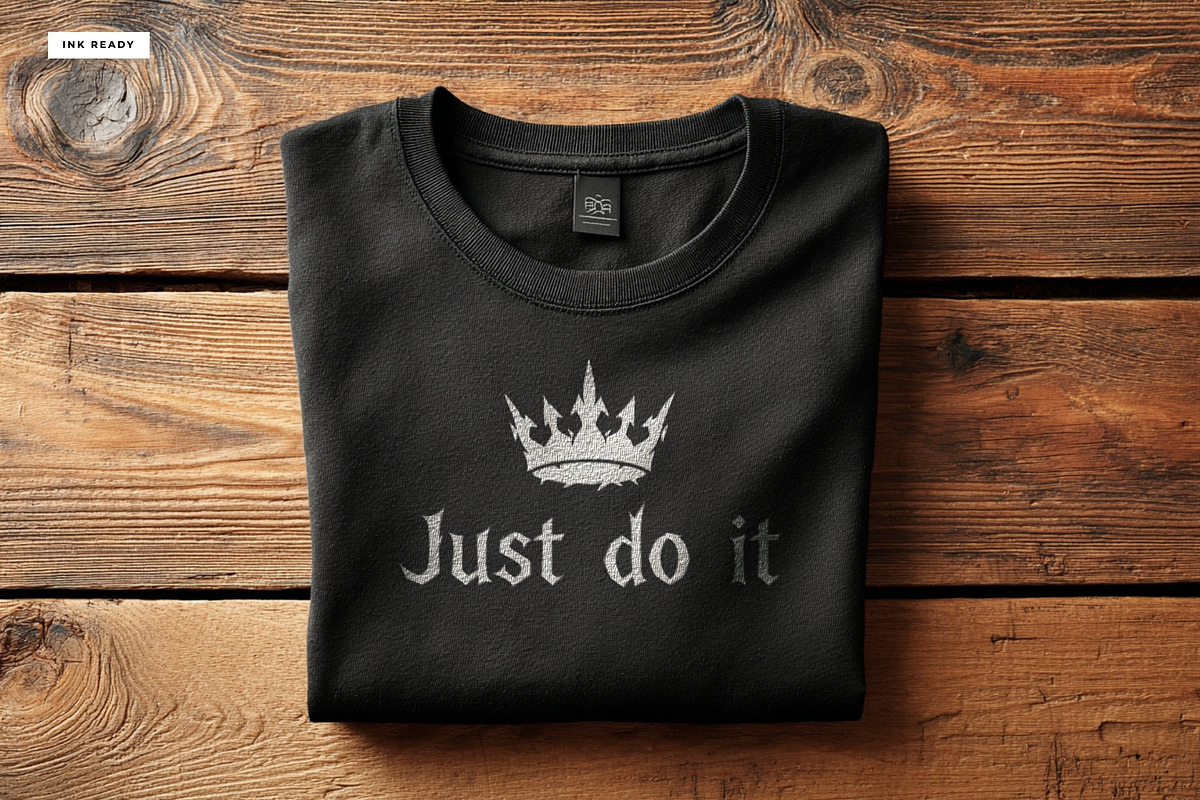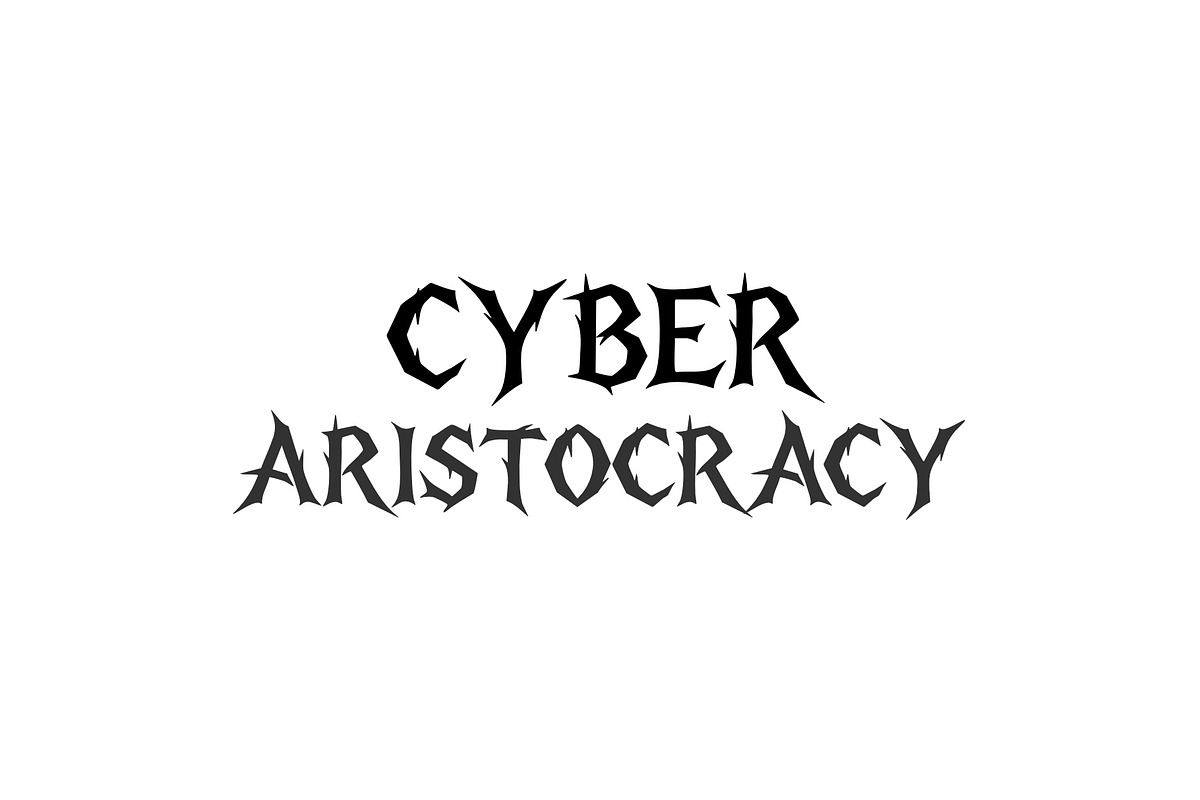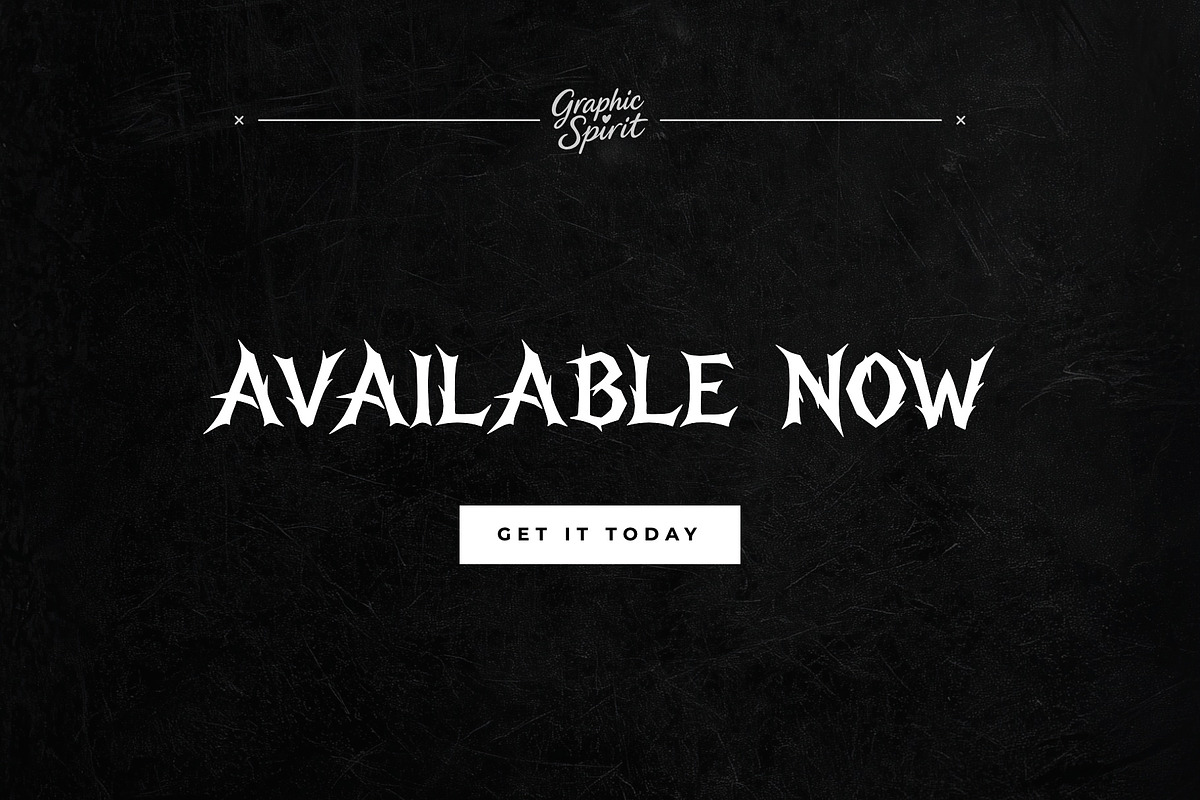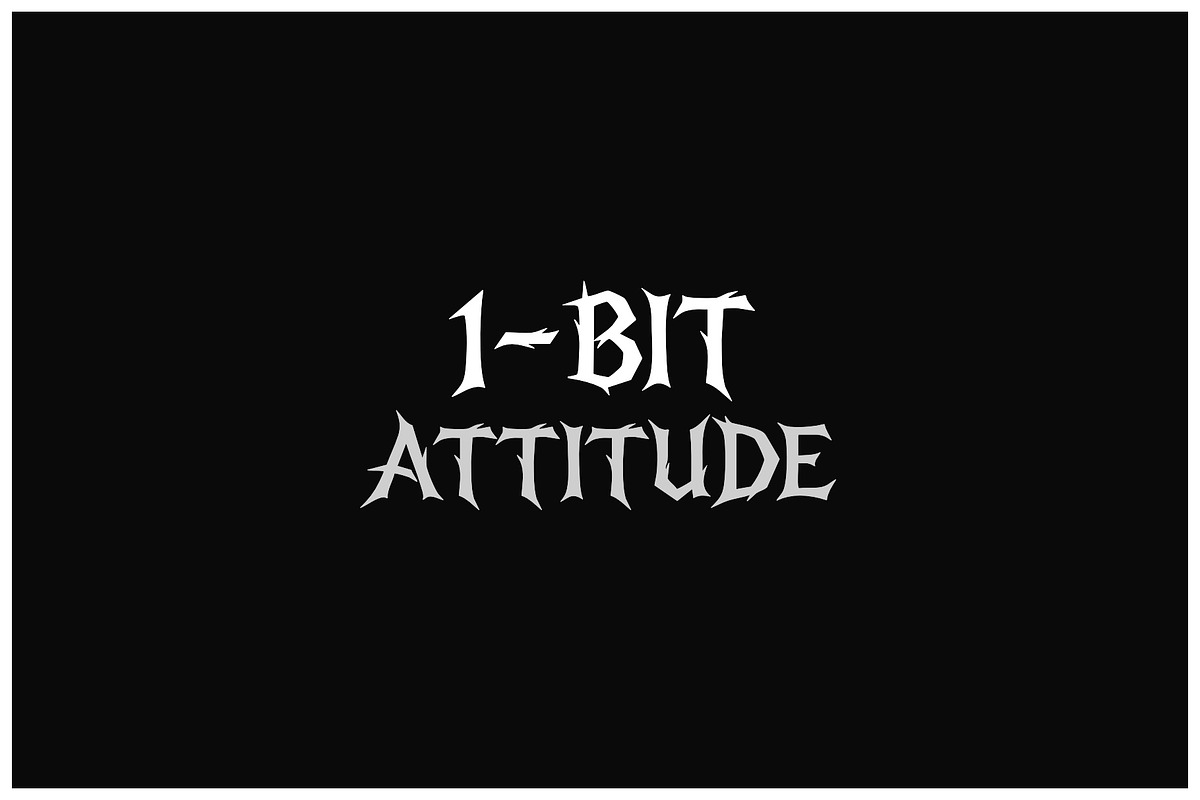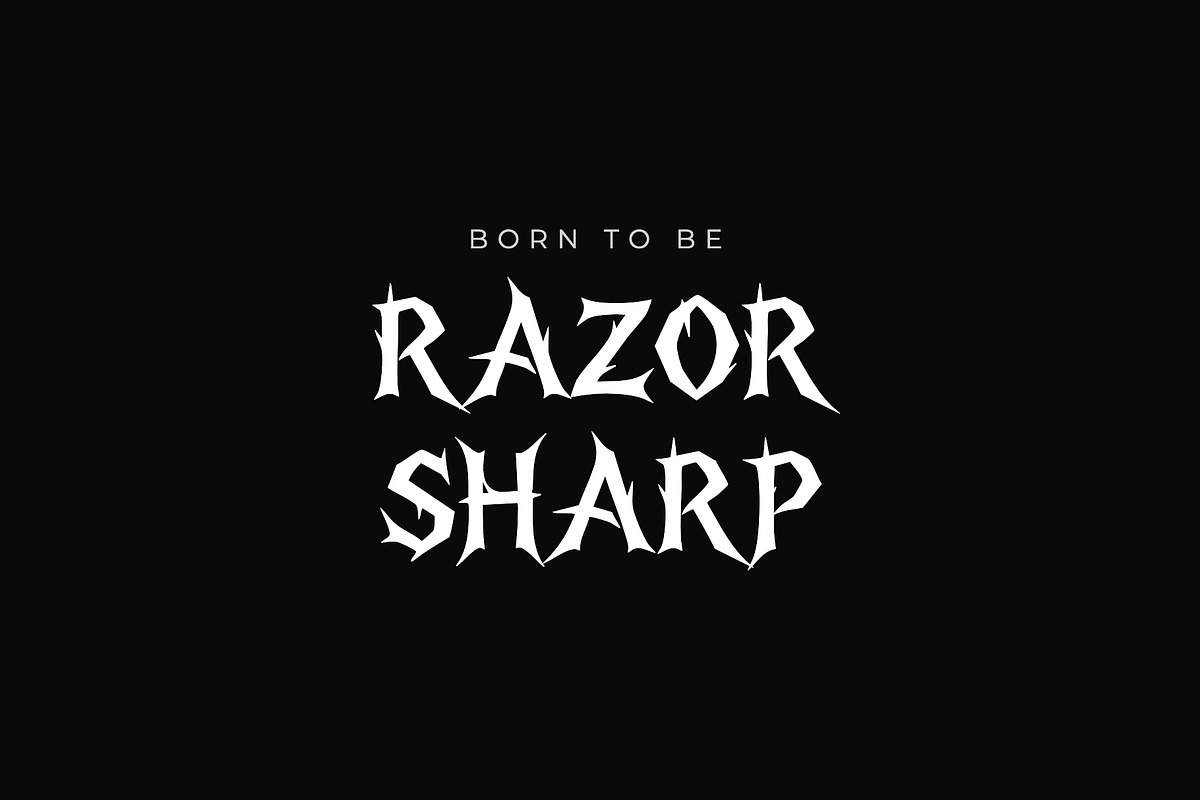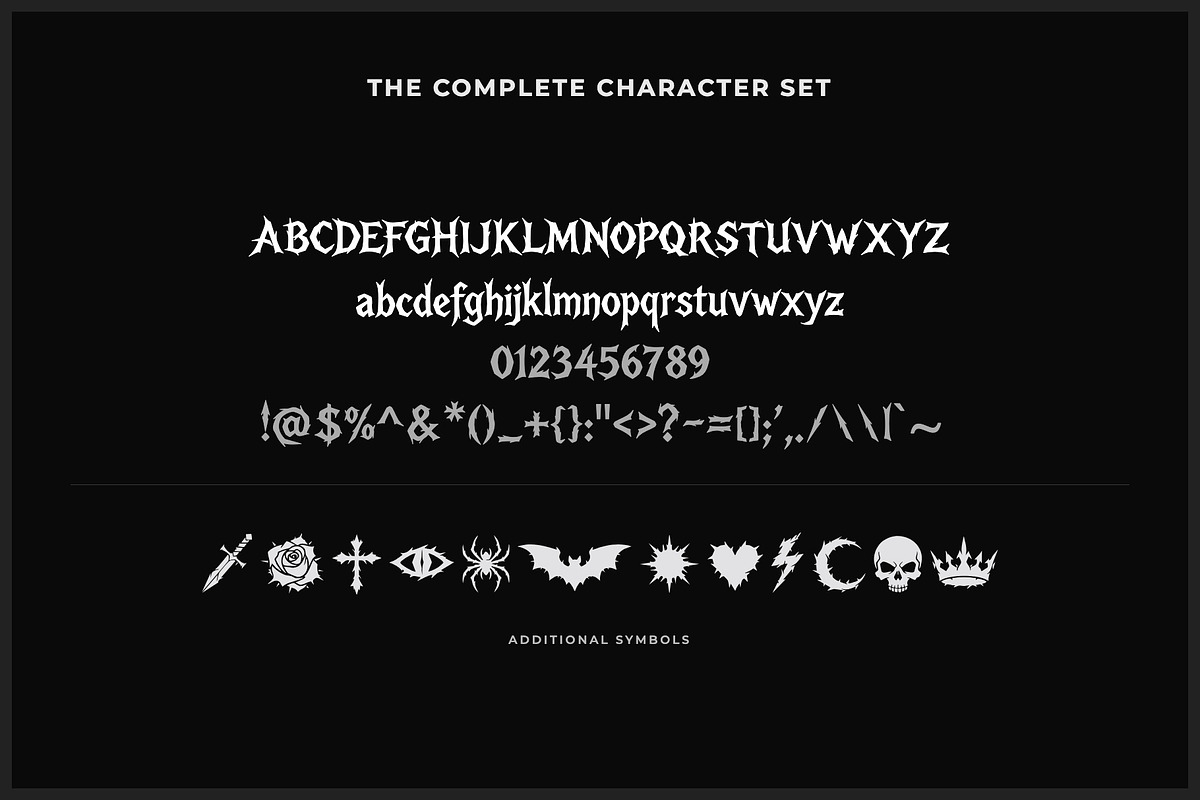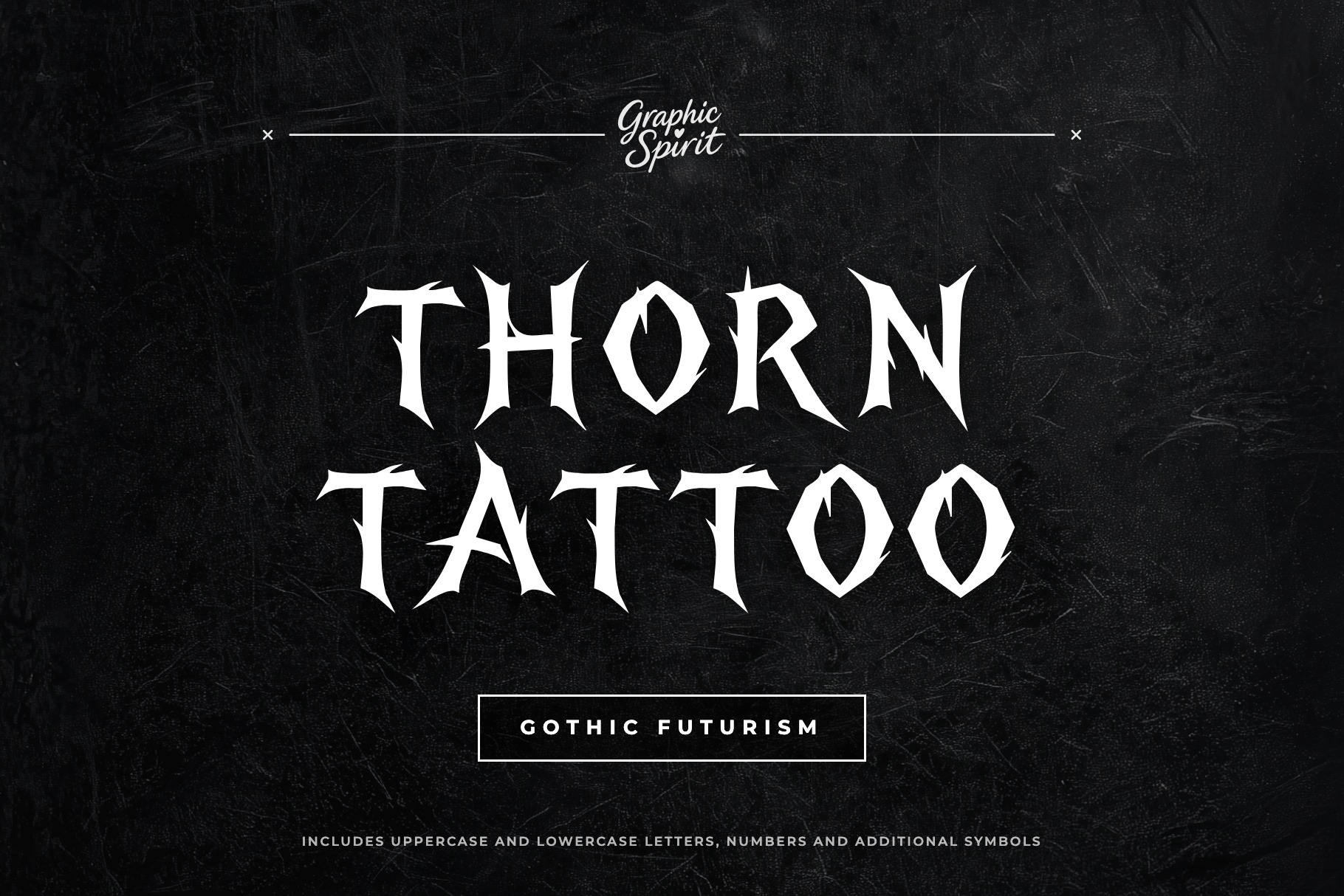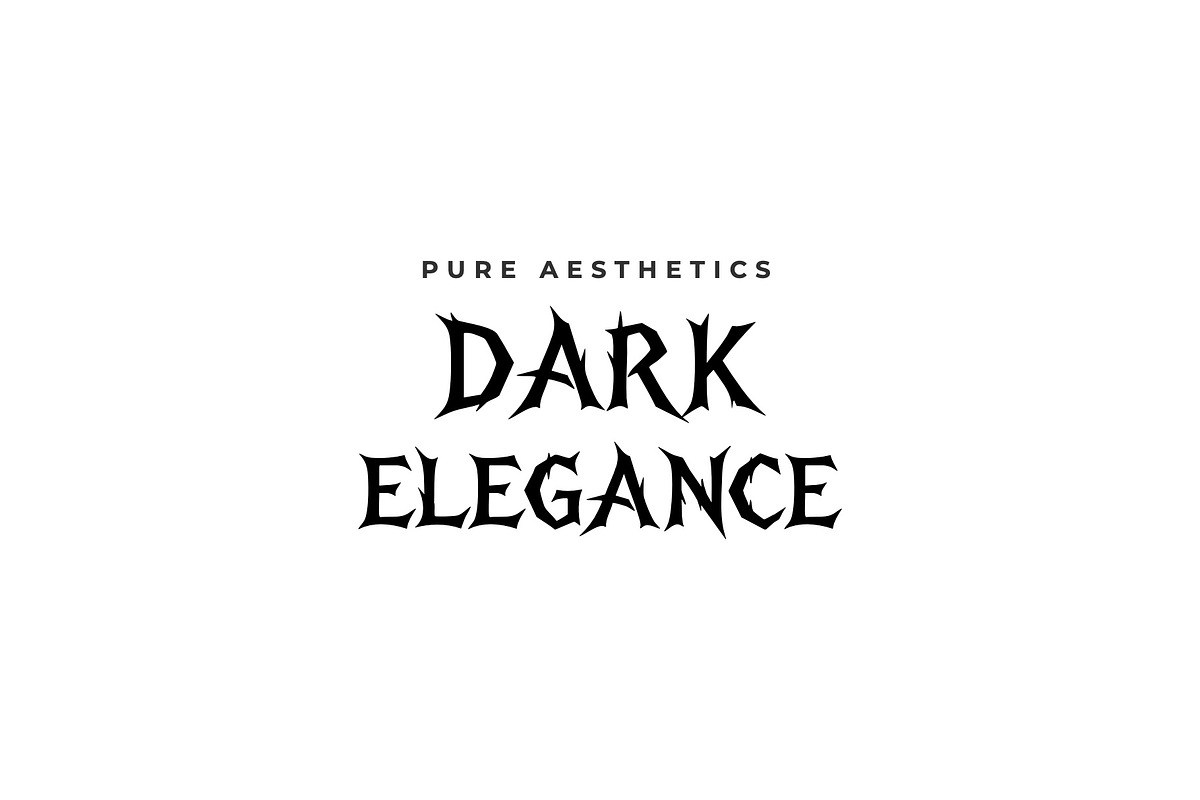
Thorn Tattoo Decorative Font
Thorn Tattoo is a sharp and aggressive Gothic-inspired font that brings a dark storytelling vibe to modern design projects. As a digital download, it offers piercing thorn-like edges and a modern Gothic aesthetic, ideal for designers seeking an edgy and intense look for their branding or apparel work. The typeface's sharp construction and dangerous lines ensure a powerful presence in any creative layout.
Designed for impact and edge, Thorn Tattoo is perfect for everything from dark logos to striking social media graphics. Its state-of-the-art design includes sharp geometric elements that allow you to customize your typography with a truly bespoke feel. Elevate your creative toolkit with this versatile font that balances dark elegance with the power of sharp storytelling for impactful results.